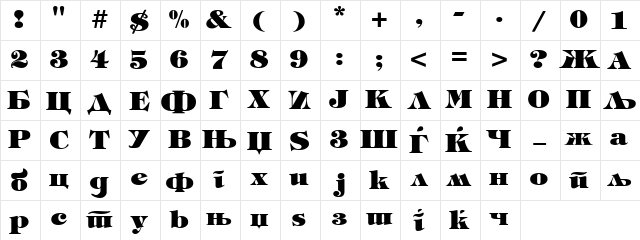
Complete C_Tiffany-Heavy-Kir Bold glyph index. Displaying only characters natively supported by C_Tiffany-Heavy-Kir Bold font.
C_Tiffany-Heavy-Kir is a composed and adaptable typeface that performs quietly and consistently across a wide range of design contexts. Its bold stroke weight gives it real presence on the page.